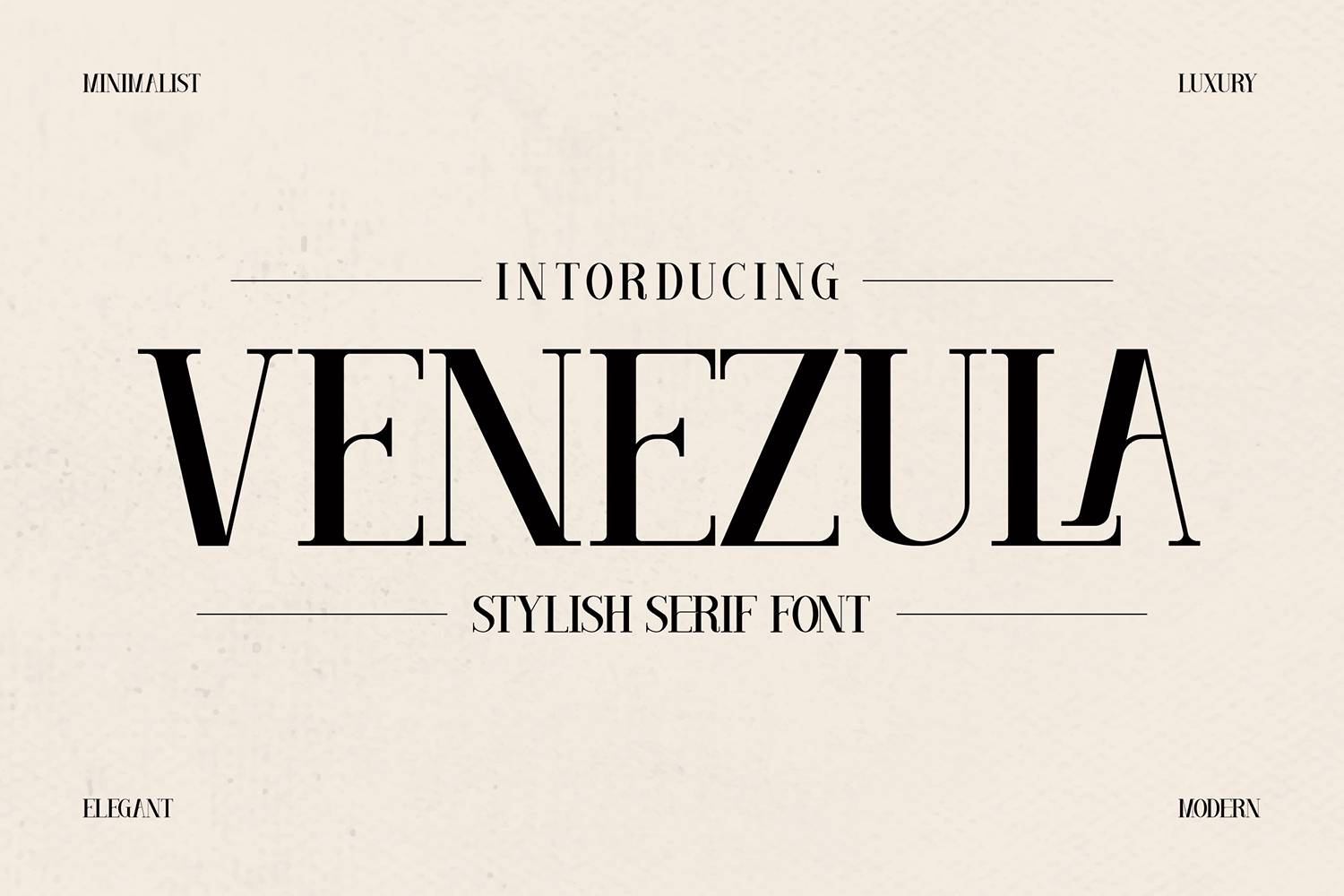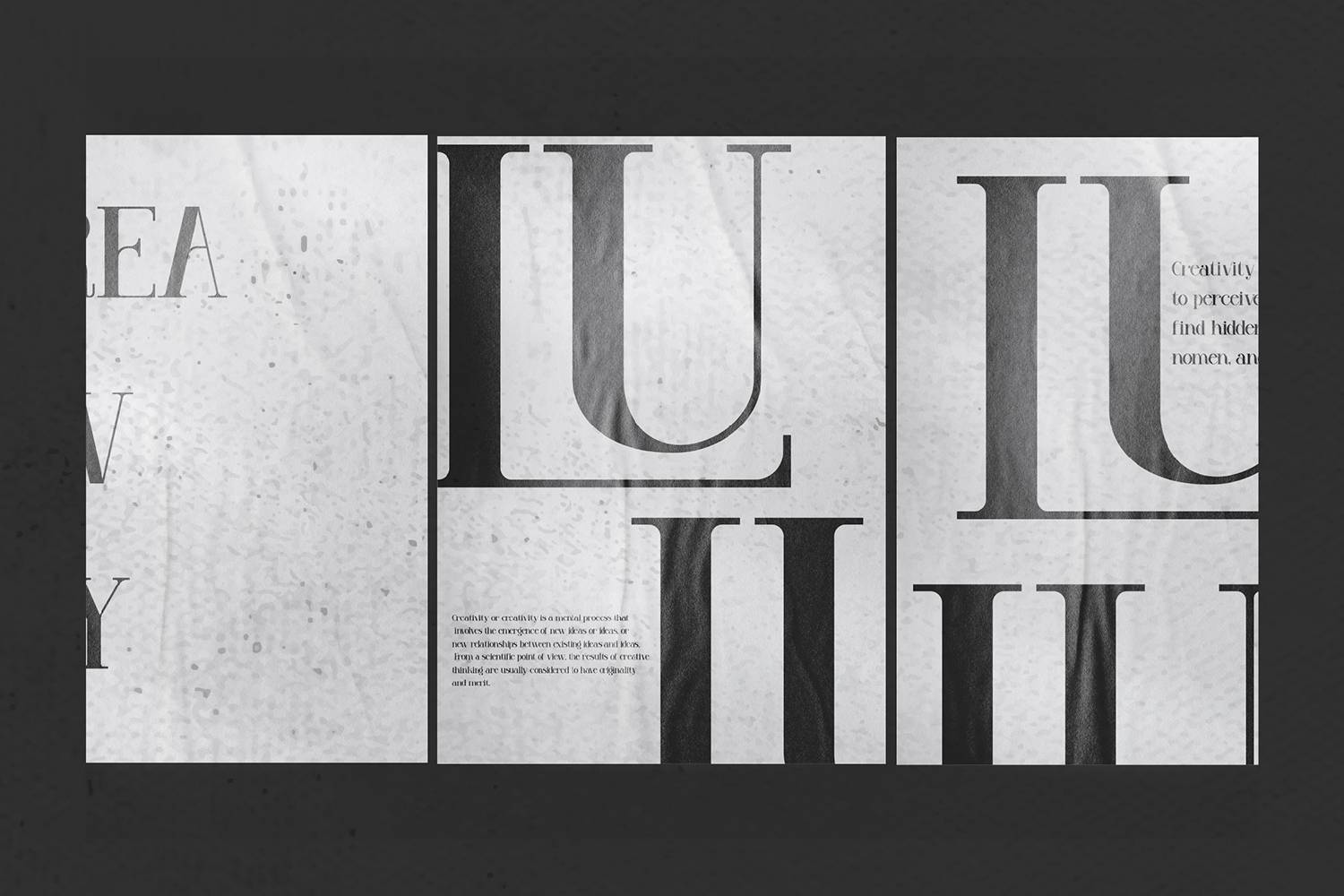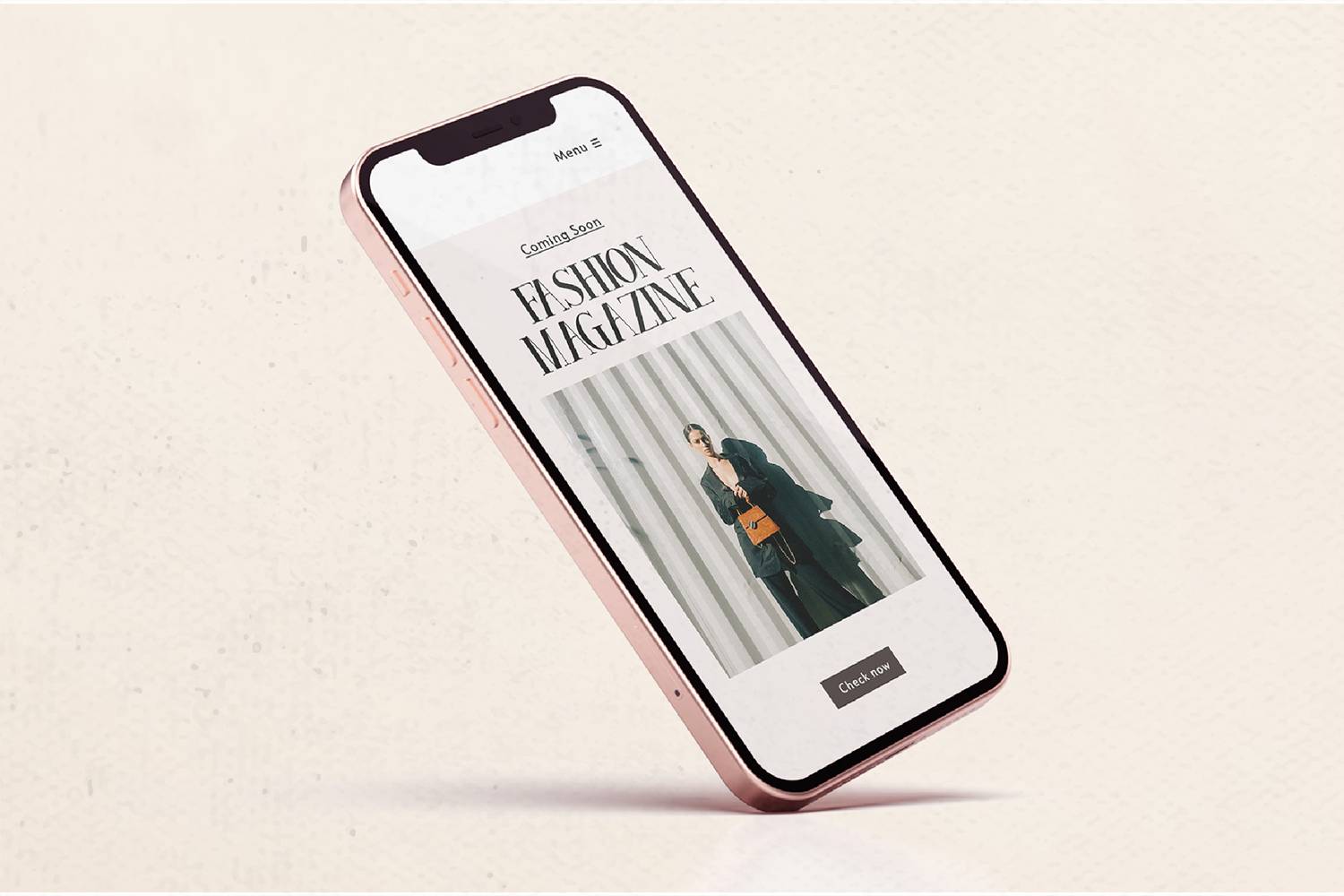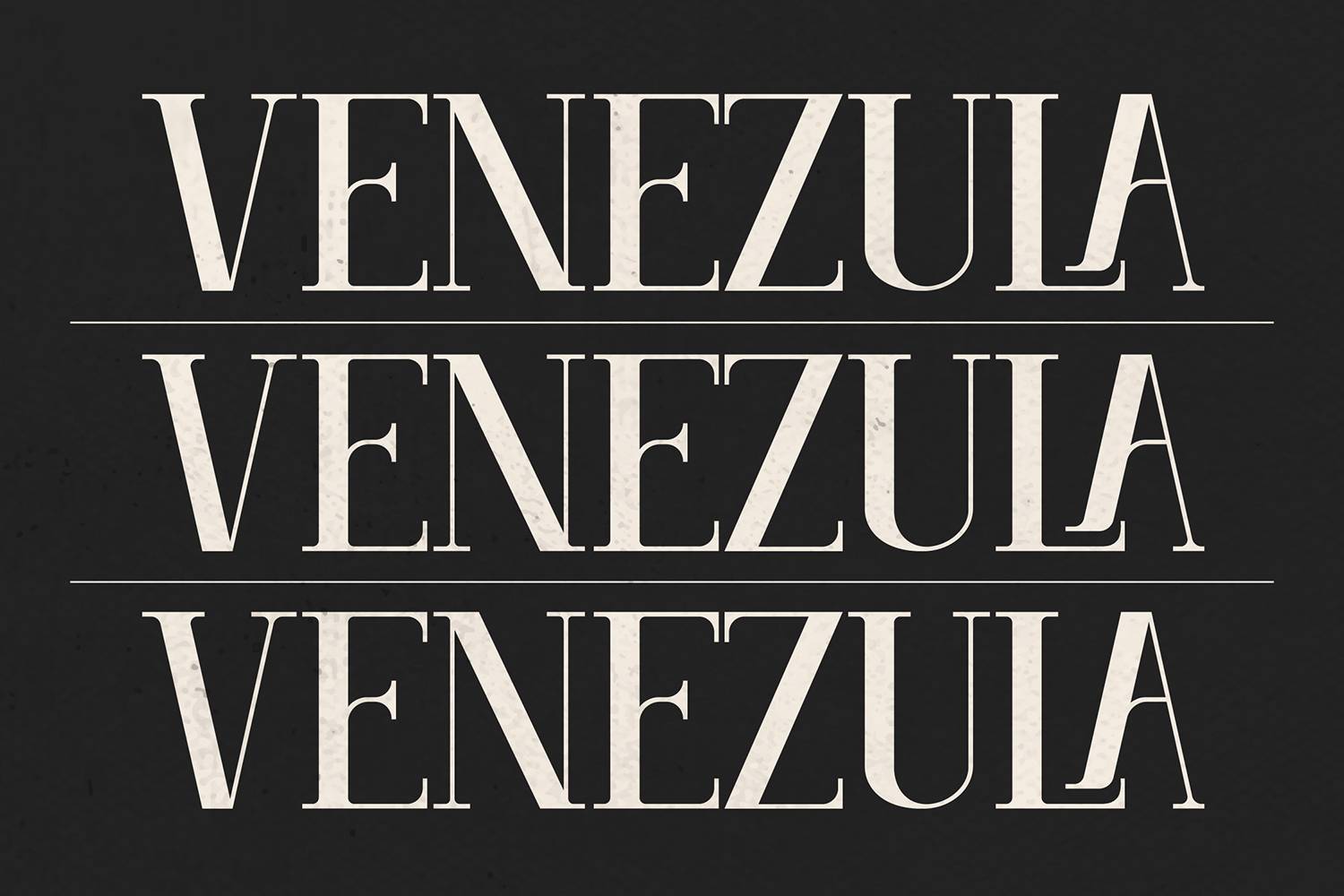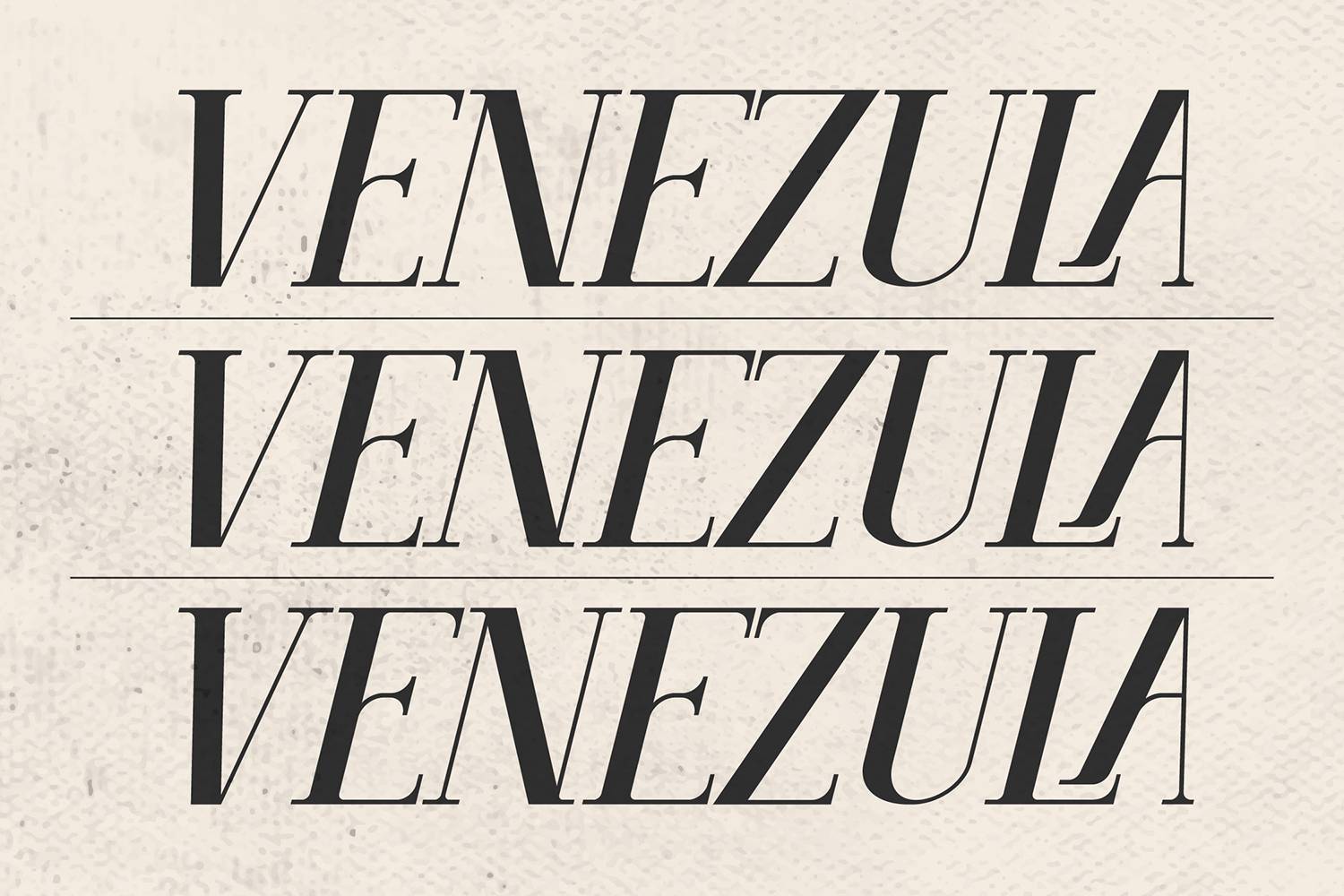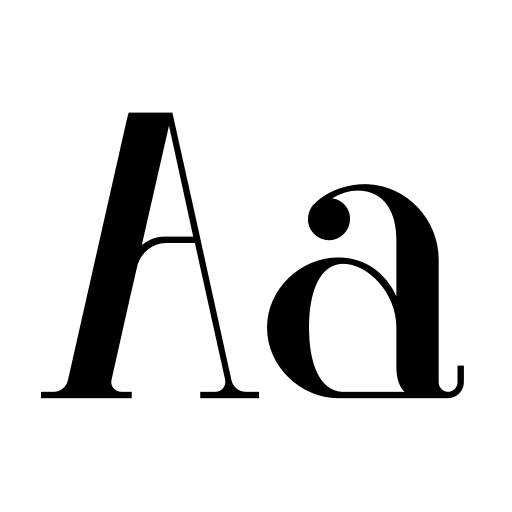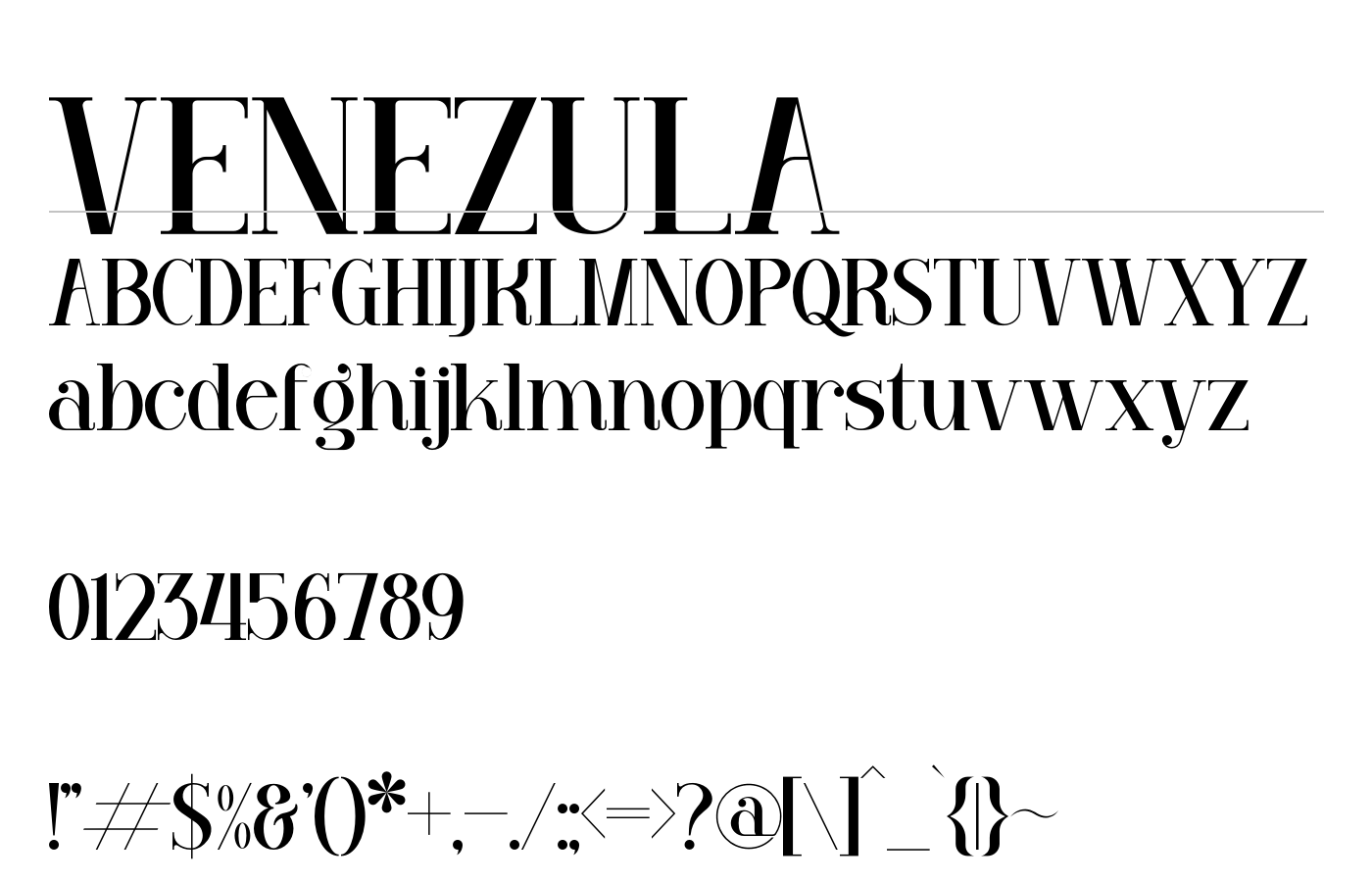
Venezula is a sophisticated serif font with a modern Didone influence, featuring high contrast between thick and thin strokes and elegant, slender letterforms. Its tall, narrow characters and refined serifs give it a stylish, upscale feel, making it ideal for luxury branding, editorial headlines, and elegant packaging where a touch of class and refinement is desired.
Venezula Font
About Venezula Font
| Font family | Venezula Font |